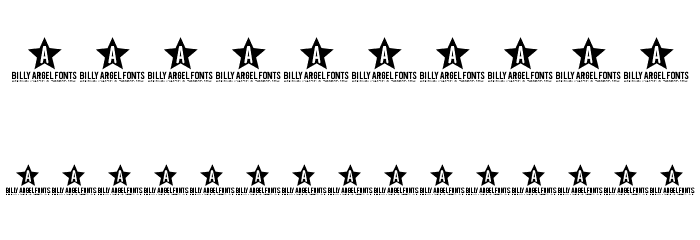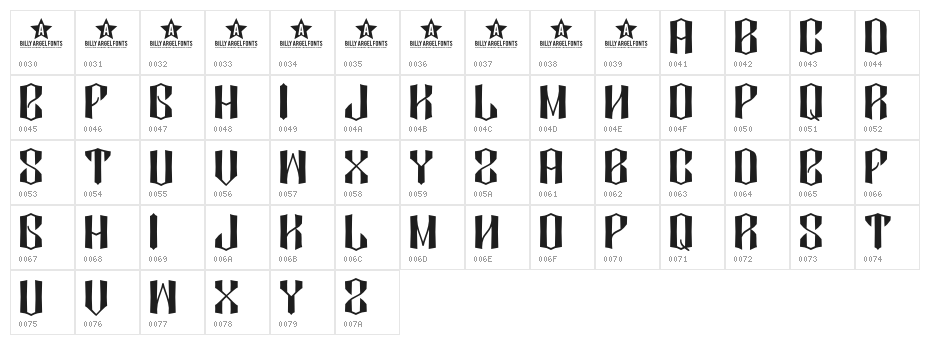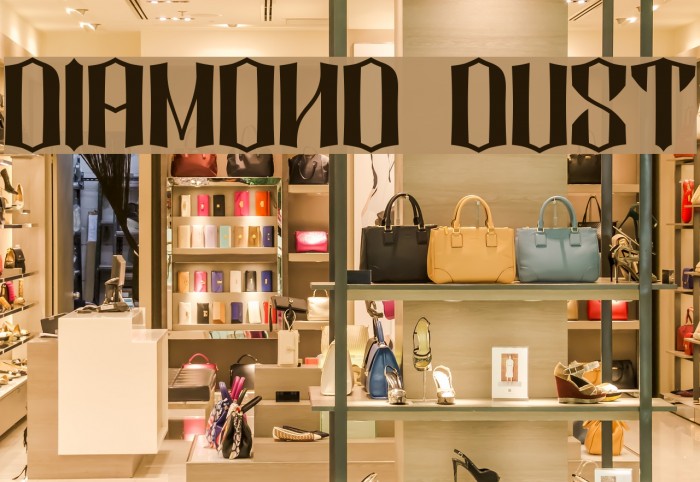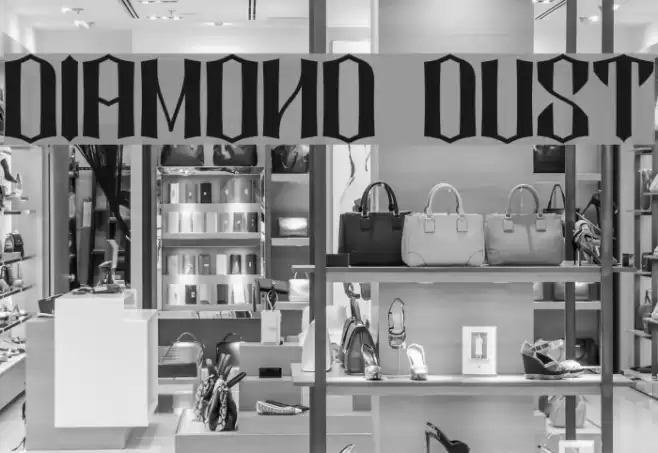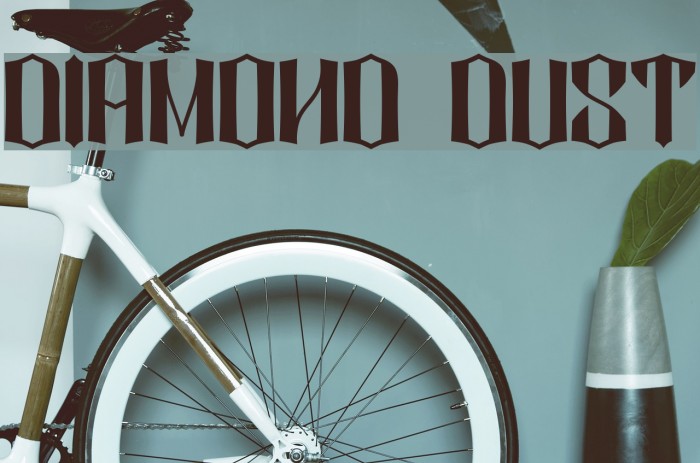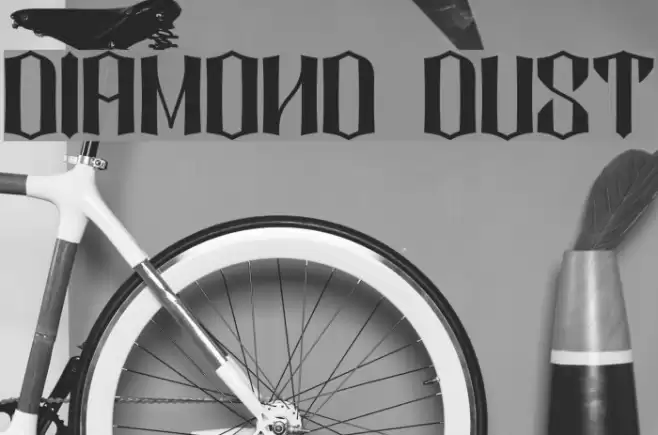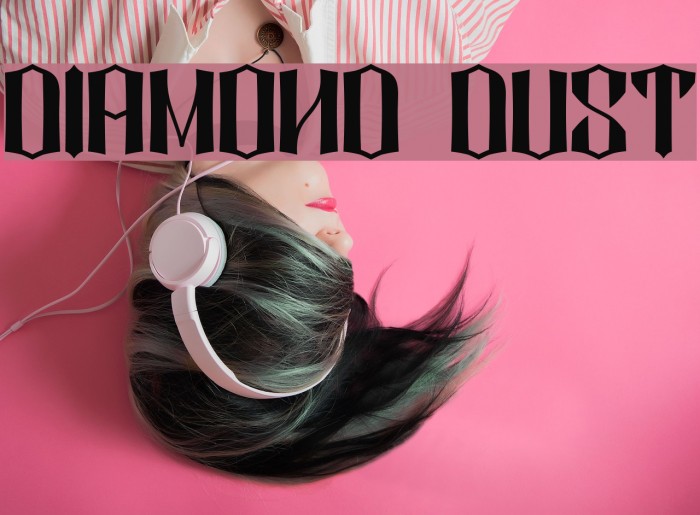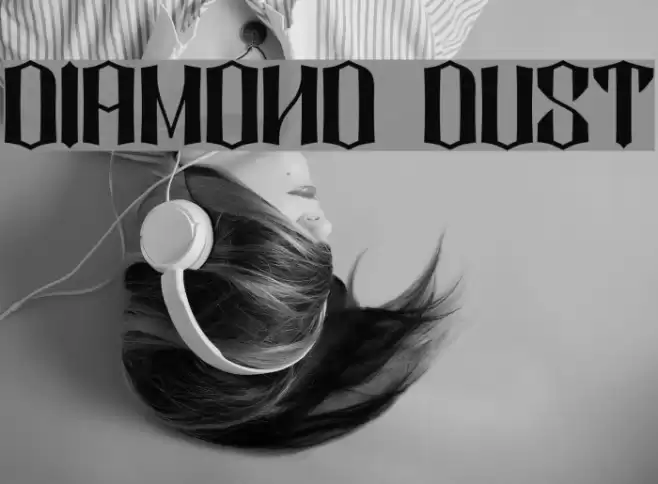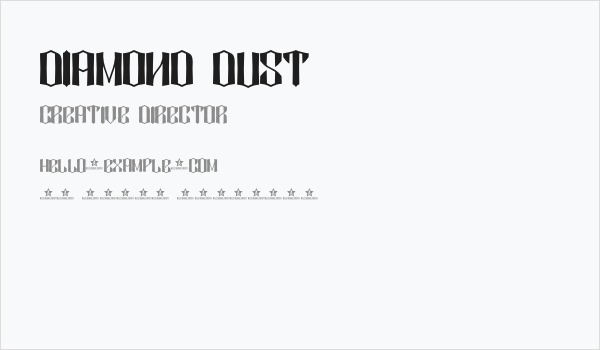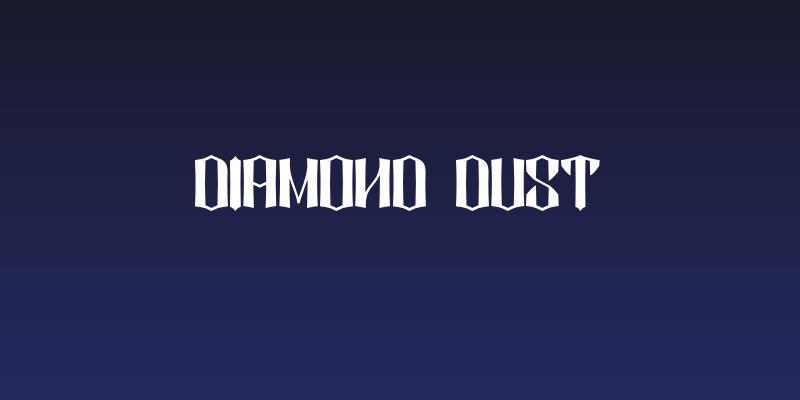
DIAMOND DUST Font
DIAMOND DUST Description
This font features a bold, angular design with sharp edges and a distinct geometric style. The uppercase letters are characterized by their tall, narrow forms and pointed serifs, giving them a striking and aggressive appearance. The overall design is reminiscent of Gothic or medieval script, with a modern twist that adds a unique flair. The characters are tightly spaced, enhancing the compact and cohesive look of the text. This font is ideal for creating impactful headlines or logos that require a strong visual presence.
| Overall Style | Modern Gothic |
| Proposed Projects | Perfect for branding, posters, album covers, and any project needing a bold, dramatic typeface. |